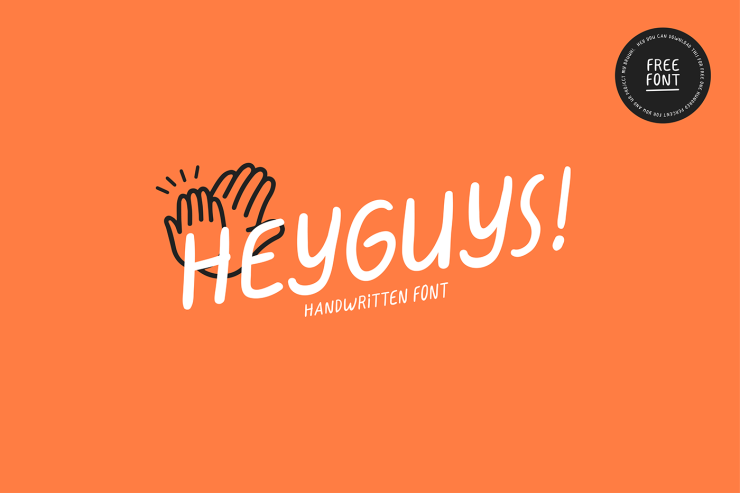
“HeyGuys!” Freefont is a handwritten font with themes of calm, fun, youth and such. I sketched it on paper first, then vectored it in Adobe Illustrator using the Huion Tablet.
Hey Guys! Free Font